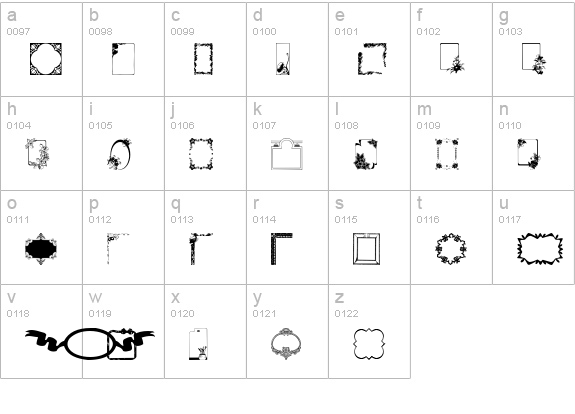
FramesAndBorders Font Details
FramesAndBorders font is a delightful and versatile typeface that is perfect for adding a touch of elegance and creativity to your design projects. This unique font features a wide variety of ornate frames and decorative borders, making it ideal for adding a sophisticated touch to invitations, posters, and other printed materials. The intricate details and stylish flourishes of FramesAndBorders font are sure to capture the attention of anyone who sees your work. Whether you are designing a wedding invitation, a menu for a special event, or a promotional flyer, this font is sure to make a lasting impression. Best of all, FramesAndBorders font is completely free to download at FontsMarket.com. So why wait? Add a touch of sophistication and flair to your designs today with this stunning and versatile font.